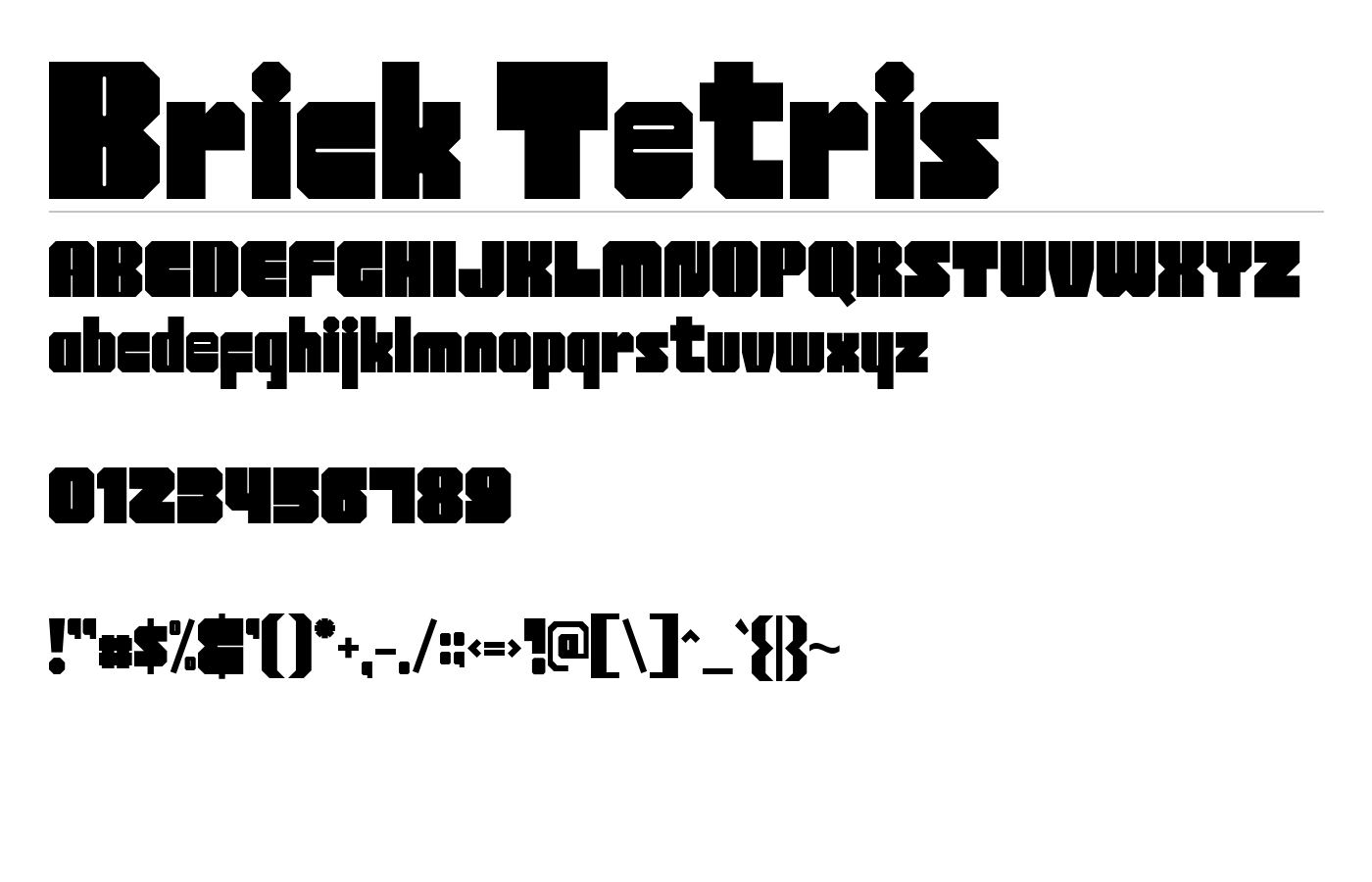
Brick Tetris is a bold, blocky sans serif font with a strong geometric feel that draws inspiration from pixelated video game aesthetics. Its heavy weight, sharp edges, and condensed letterforms give it a striking, playful character perfect for retro gaming, tech branding, or eye-catching headlines. This font shines in creative projects where a fun, strong, and modern style is needed to stand out.
Brick Tetris Font
About Brick Tetris Font